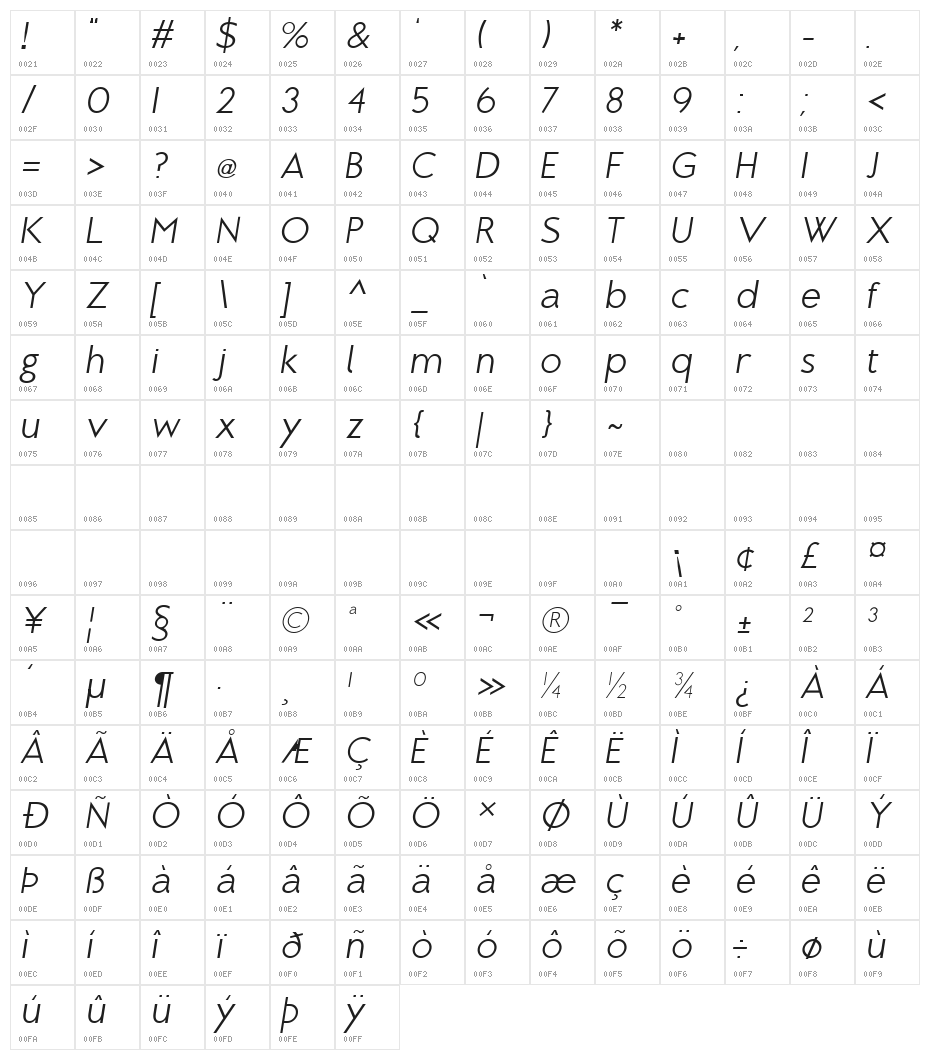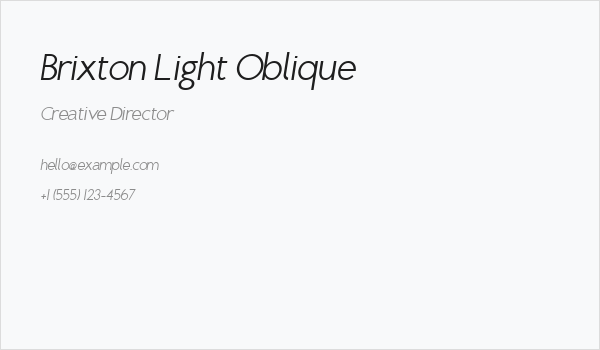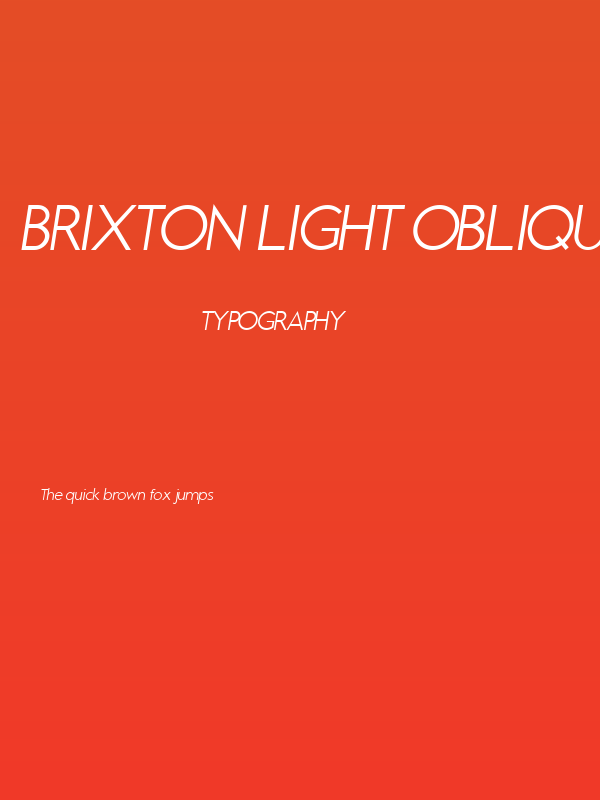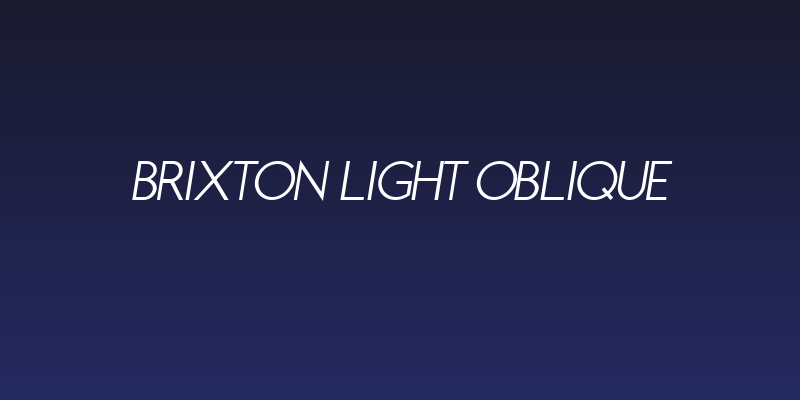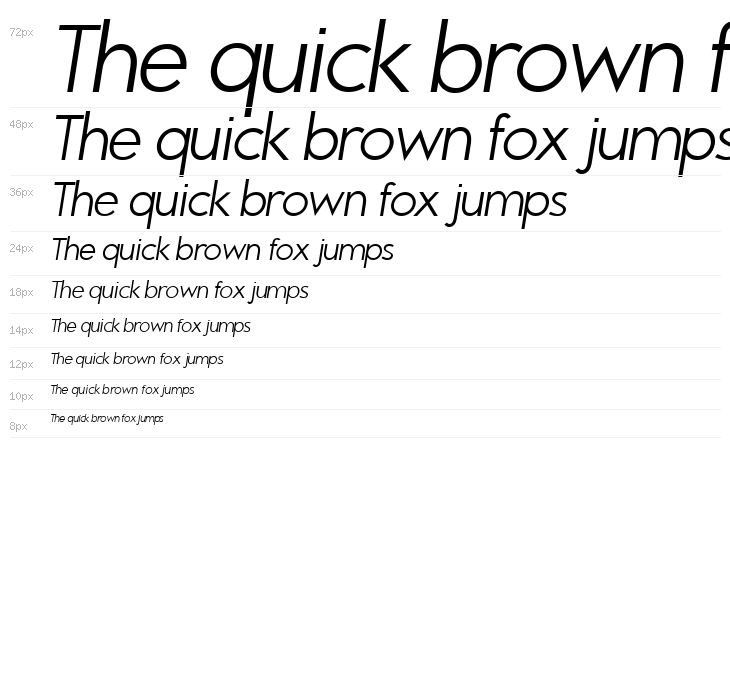
Brixton Light Oblique Font
Brixton Light Oblique Description
This font exhibits a sleek and modern design with a slight oblique angle, giving it a dynamic and forward-moving appearance. The characters are crafted with a clean and minimalist aesthetic, featuring smooth curves and straight lines that create a sense of elegance and sophistication. The font maintains a consistent stroke width throughout, contributing to its uniform and harmonious look. Its light weight adds to the airy and open feel, making it suitable for a variety of design applications where clarity and readability are essential. The character set includes uppercase and lowercase letters, numbers, and a range of punctuation marks and special symbols, all designed with a cohesive style that ensures visual consistency across different uses.
| Proposed Projects | Ideal for branding, editorial design, advertising, and digital interfaces where a modern and elegant look is desired. |